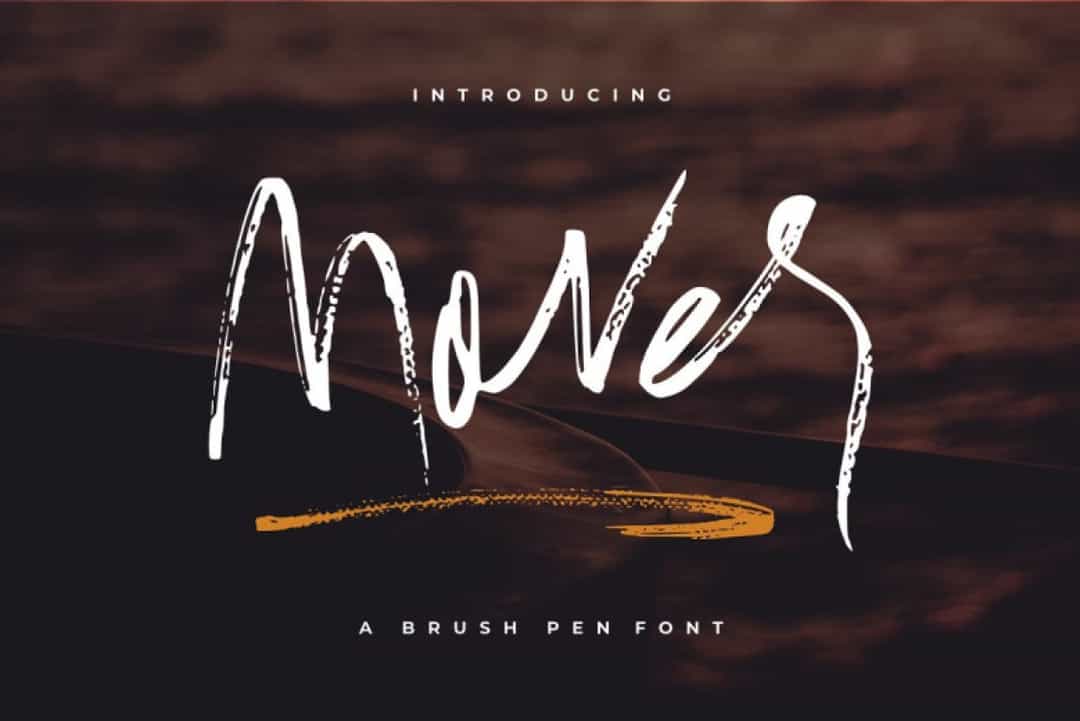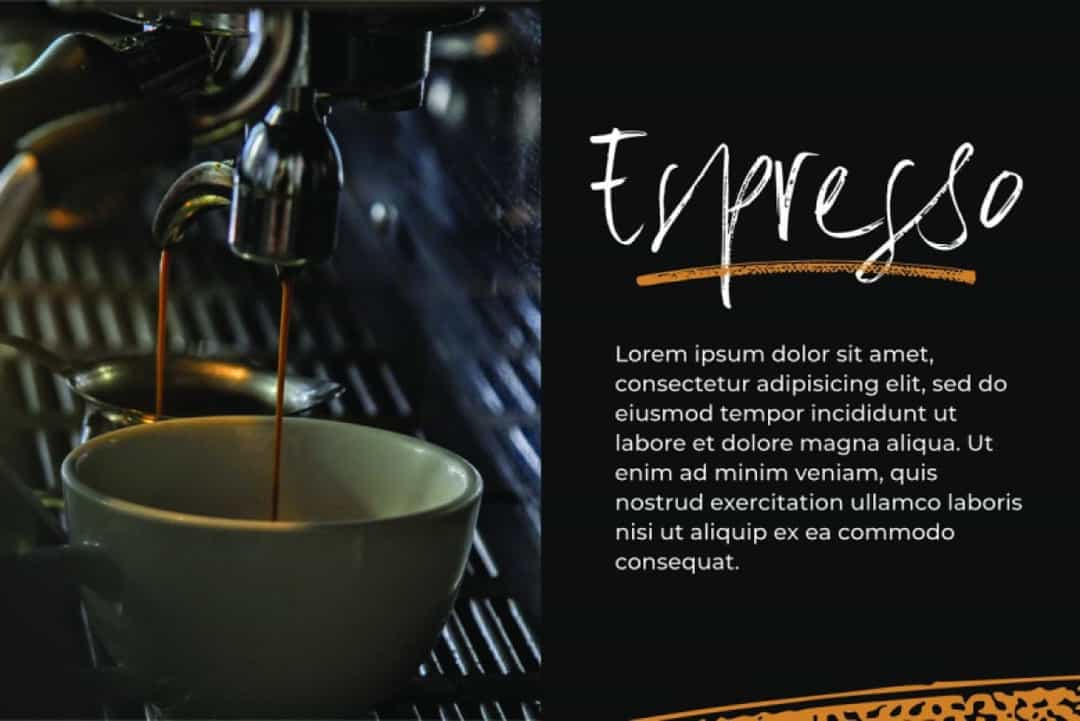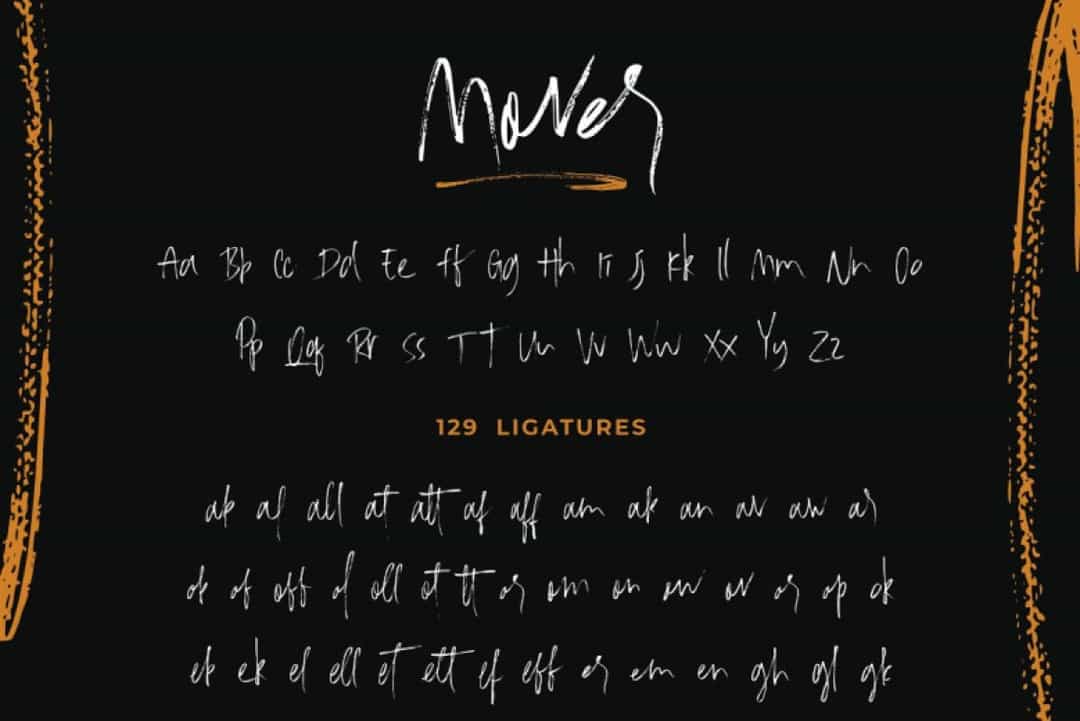
Mover font is an elegant, handwritten brush pen and texture typeface carefully created from paper. This versatile font can be used in numerous creative projects including logo design, advertising campaigns, movie titles, book covers, apps and much more.